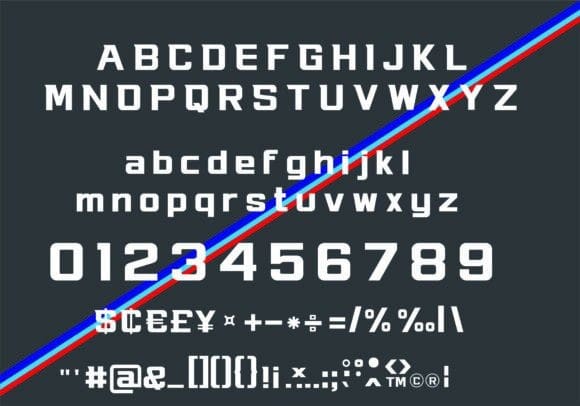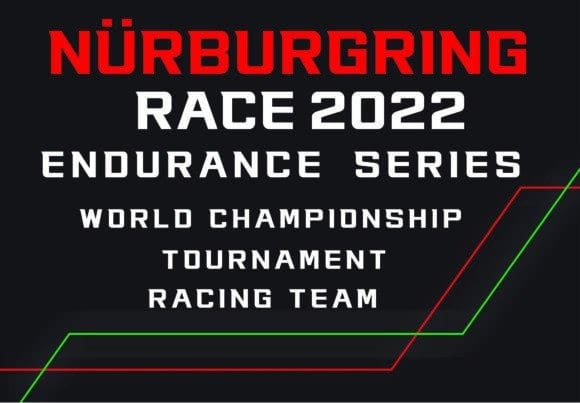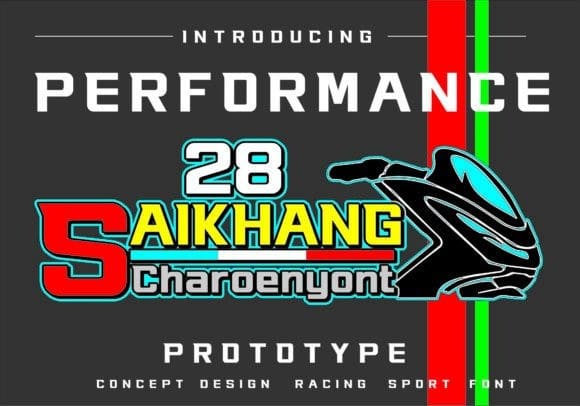
Performance Font
Performance Font is a bold, modern sport-style font. No matter the topic, this font will be an incredible asset to your fonts’ library, as it has the potential to elevate any creation.